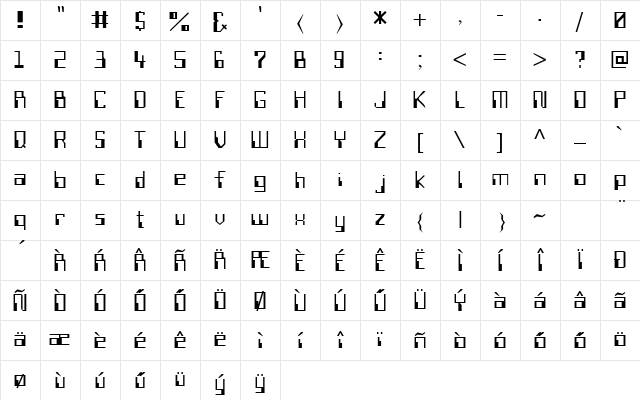
Complete H_Sillycon Plain glyph index. Displaying only characters natively supported by H_Sillycon Plain font.
H_Sillycon is a composed and adaptable typeface that performs quietly and consistently across a wide range of design contexts.